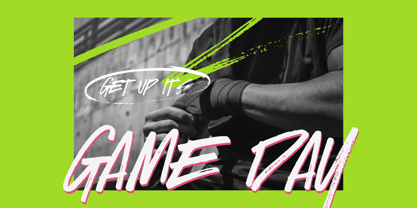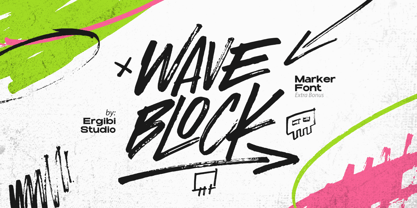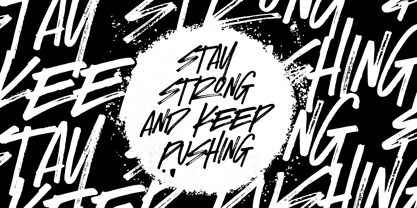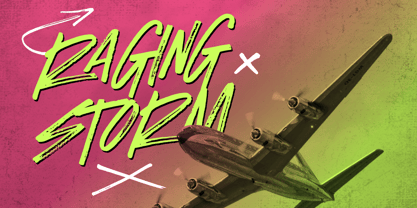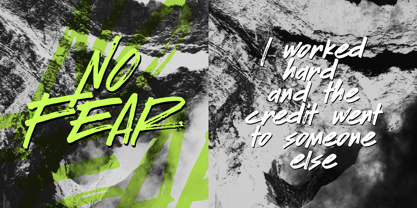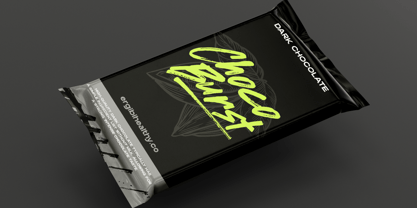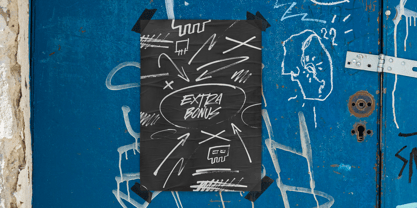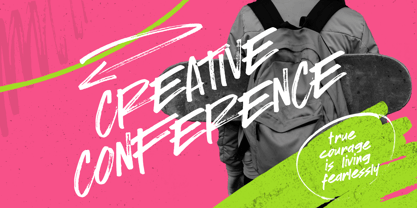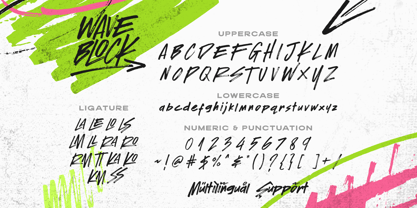
Wave Block
by Ergibi Studio
The Wave Block Font Family was designed by Riyadh Rahman and published by Ergibi Studio. Wave Block contains 2 styles and family package options.
Waveblock is a raw and energetic typeface, crafted with realistic brush strokes that add a gritty, hand-painted look to your designs. Each letter is infused with texture and bold movement, featuring uppercase, lowercase, numerals, and essential ligatures for versatile styling. Perfect for projects like logos, posters, apparel, album covers, or packaging, Waveblock Brush brings a true urban vibe with an organic, hand-crafted feel. This font is designed to add dynamic personality and authenticity to any work, giving it a street-smart, powerful edge.